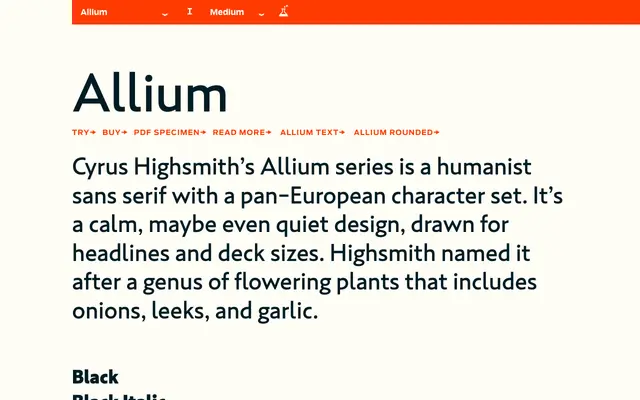
Allium
A calm humanist sans by Cyrus Highsmith, drawn for headline and deck sizes with an unusually broad pan-European character set covering Latin, Cyrillic and Greek.
Designed by Cyrus Highsmith and released in 2017, it runs across six weights from Thin to Black, each with a matching italic, giving twelve styles in total. The drawing is quiet and controlled rather than expressive, suited to editorial headline work where legibility across multiple scripts matters. The family extends into Allium Text and Allium Rounded sub-families, and the glyph set includes old-style figures, tabular figures, ligatures and a full range of stylistic alternates.
Highsmith describes it explicitly as a humanist sans serif; its broad pan-European character set, calm drawing style and headline orientation confirm a humanist classification rather than geometric or grotesque.